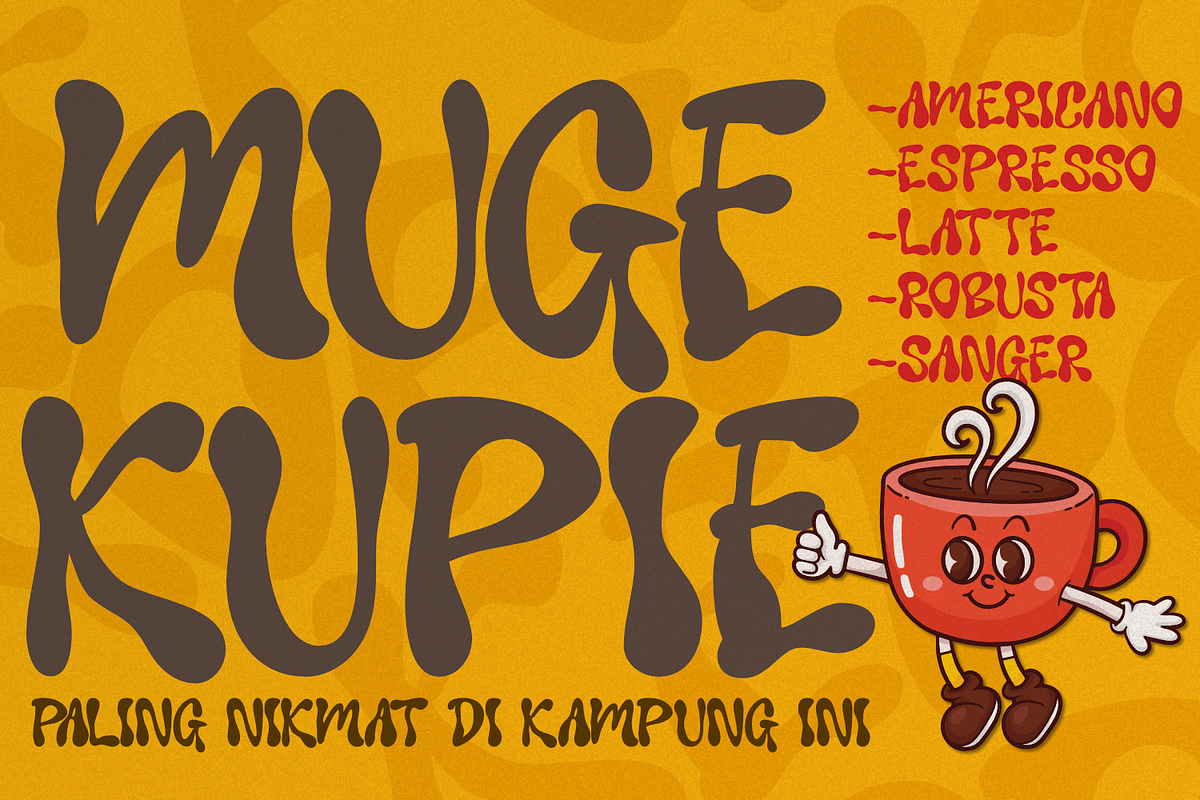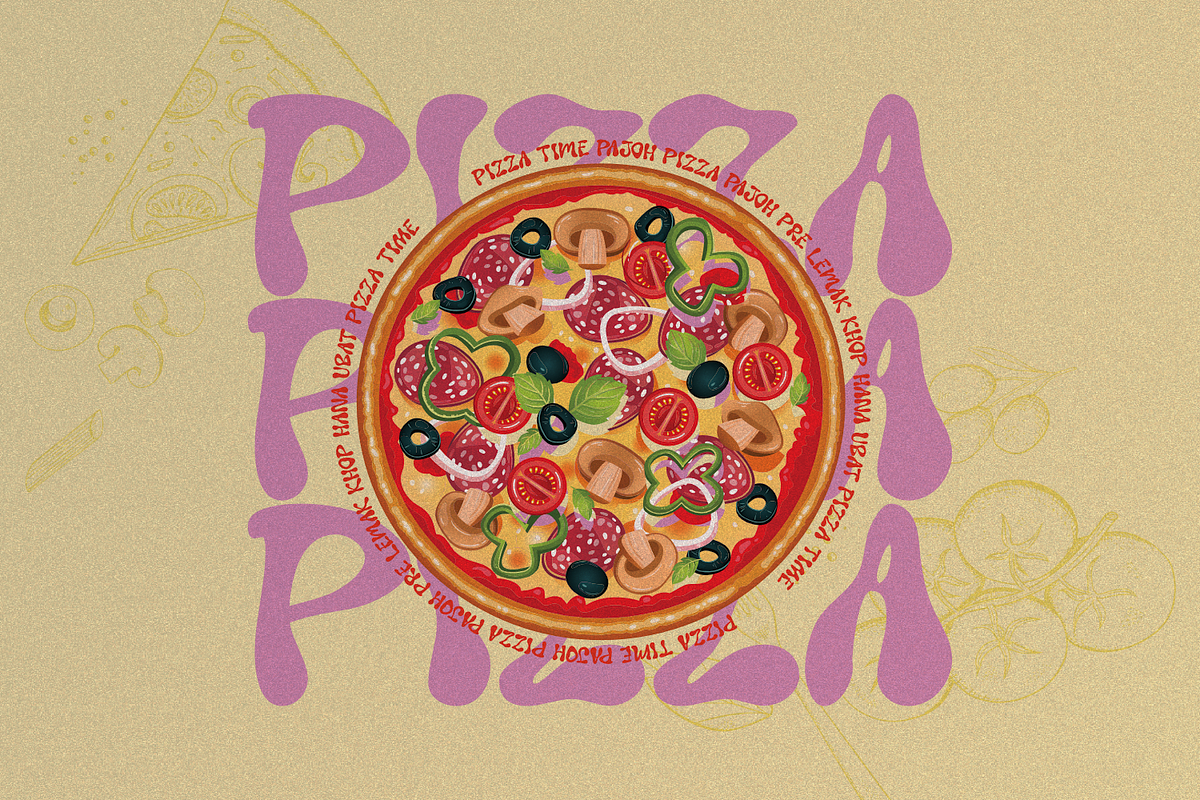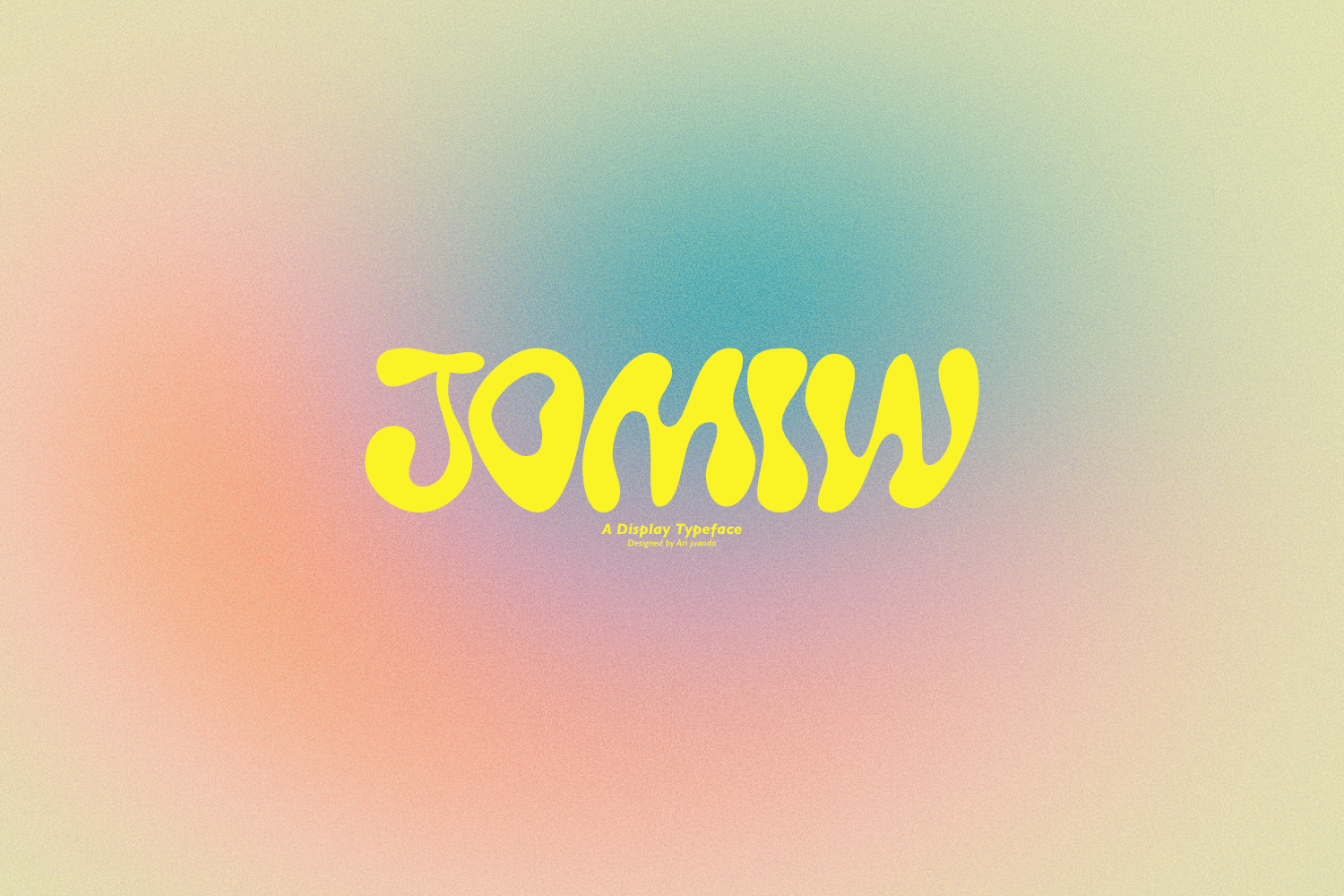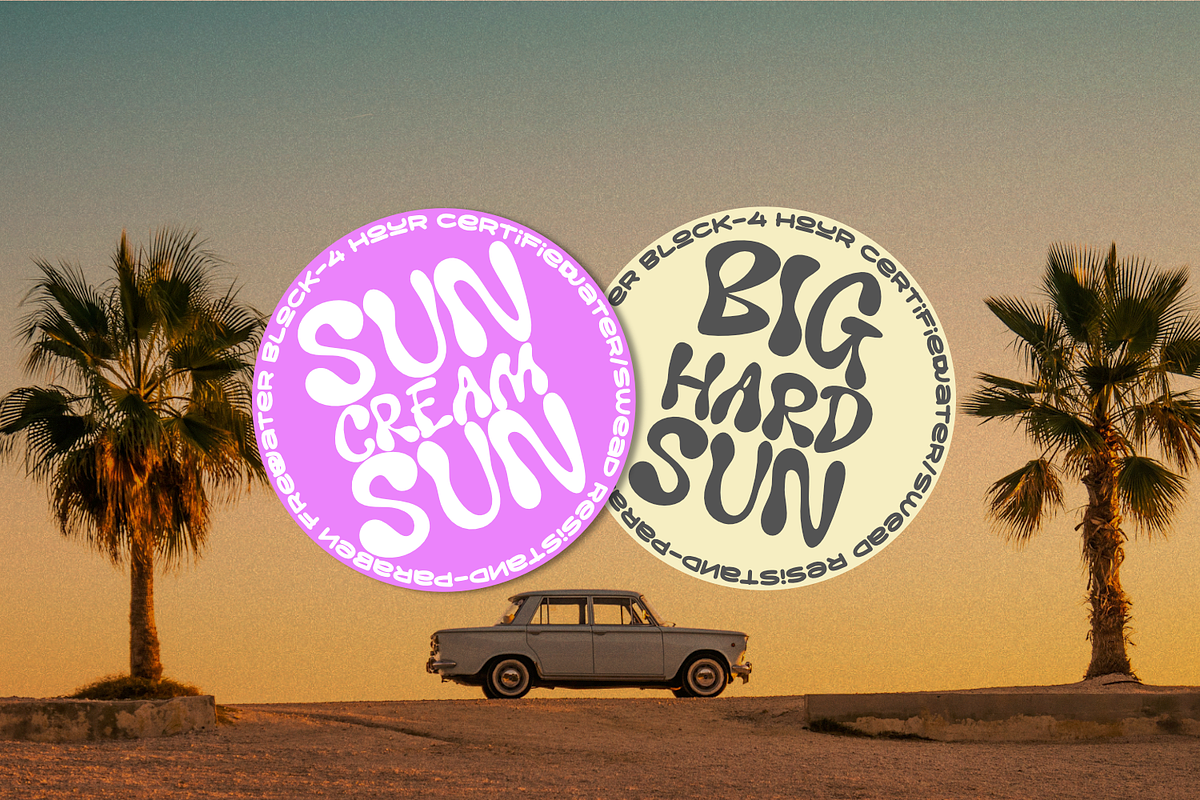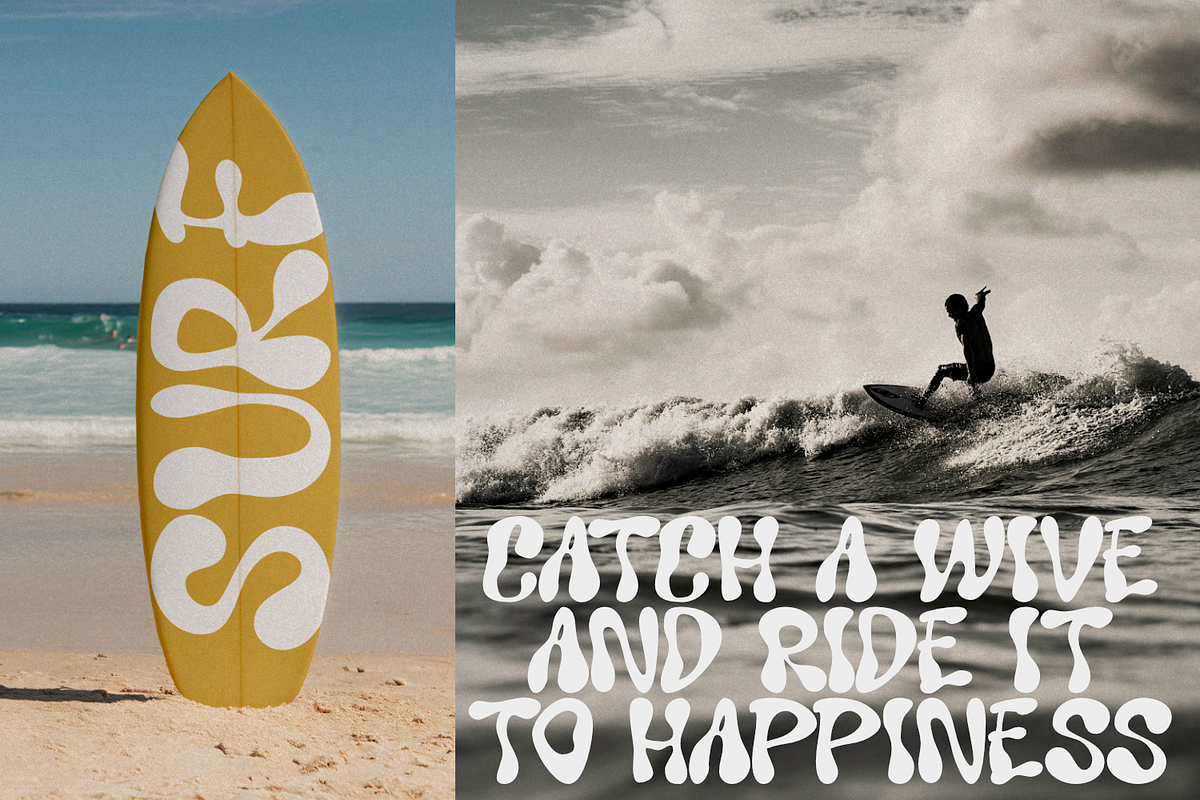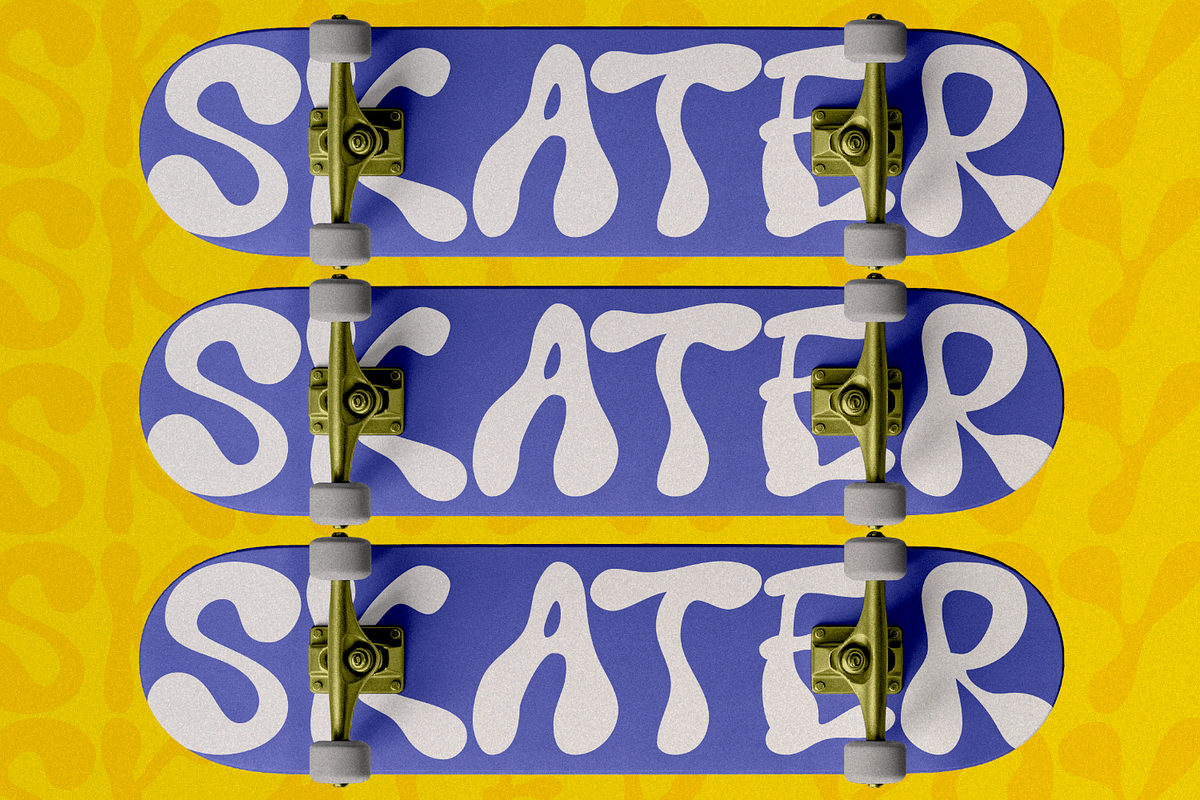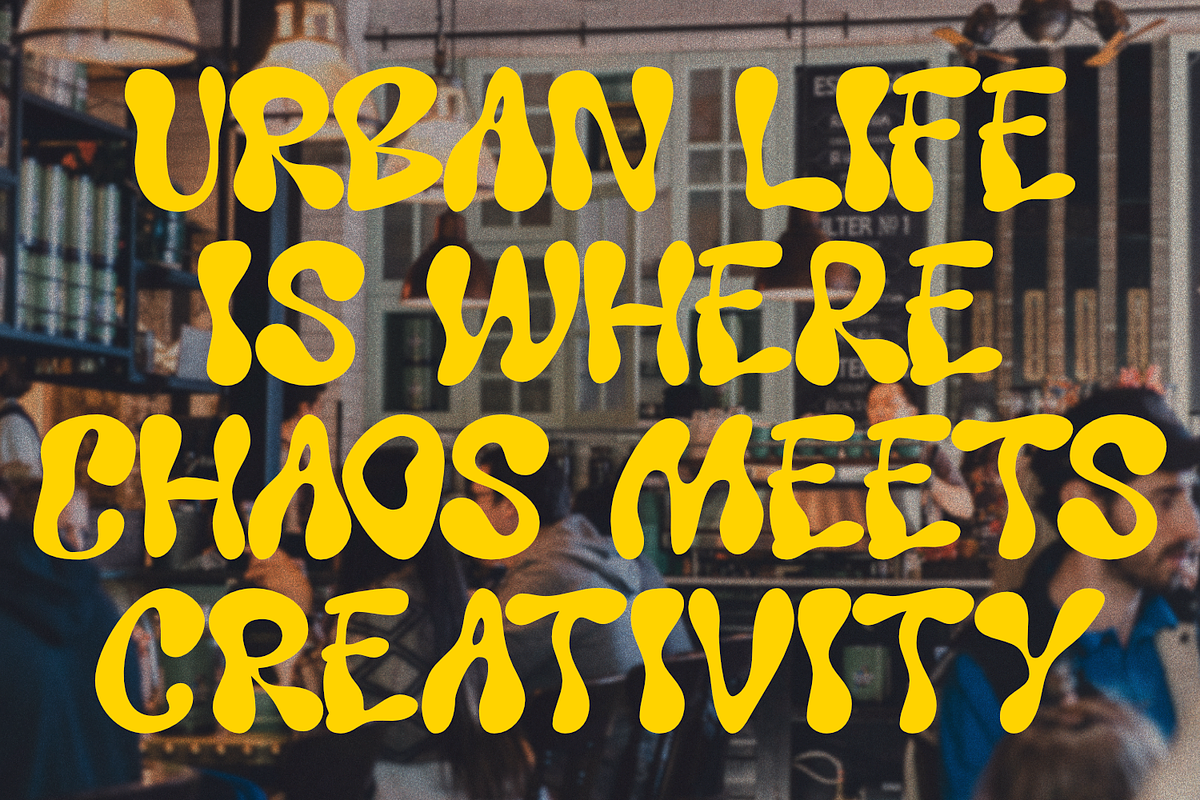
Jomiw A Display Typeface
JOMIW is a playful display typeface filled with organic shapes and expressive energy. Its fluid and flexible letterforms create a strong retro psychedelic vibe blended with a modern urban touch. Every character is designed with soft curves and imperfect shapes, giving the font a unique, artistic, and eye-catching personality.
The typeface features bold rounded forms that feel friendly yet visually strong. Its flowing structure almost looks melted or freely moving, creating a lively and dynamic rhythm across every word. This distinctive style makes JOMIW highly expressive and instantly recognizable.